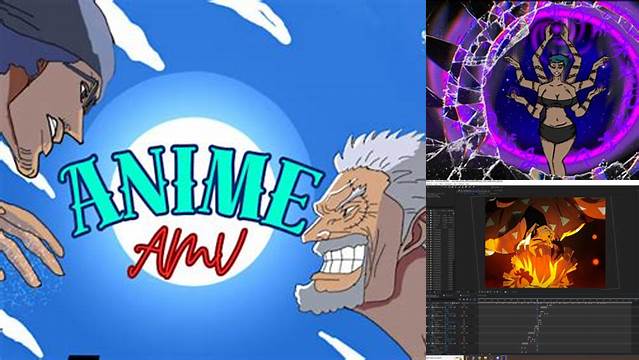
Best Fonts For AMVs: Create Stunning Anime Music Videos
Creating an Anime Music Video (AMV) is an art, and just like any art form, the details matter. One of the most crucial, yet sometimes overlooked, aspects of a great AMV is the font you choose. The right font can enhance the emotional impact, complement the visuals, and make your video truly stand out. But with so many options out there, how do you pick the best fonts for AMVs? Don't worry, guys! We’ve got you covered. This guide will walk you through everything you need to know to choose the perfect font for your next AMV masterpiece.
1. Understanding the Importance of Font Choice in AMVs
Choosing the best fonts for AMVs isn’t just about aesthetics; it’s about conveying the right message and enhancing the overall viewing experience. The font you select can set the tone, reflect the mood of the music and anime, and ensure that your text is legible and engaging. A poorly chosen font can distract viewers and detract from the emotional impact you’re trying to create. For example, a playful, bubbly font might not be the best choice for a serious, dramatic AMV. Similarly, a font that's too ornate or difficult to read can frustrate viewers and make it hard for them to follow along. Think of the font as a visual voice that complements the music and visuals, adding another layer of storytelling to your AMV. So, let's dive deeper into why this is so important.
Why Fonts Matter in AMVs
Think about it – you’ve spent hours meticulously editing clips, syncing them perfectly with the music, and crafting a narrative that flows seamlessly. But if your text is illegible or doesn’t match the vibe, all that hard work might not shine through. Fonts communicate emotions and themes just like music and visuals do. A bold, sans-serif font might convey power and intensity, while a delicate, script font can evoke feelings of romance or nostalgia. The best fonts for AMVs are those that harmonize with the overall aesthetic and enhance the story you're telling. Moreover, the right font can make your AMV look professional and polished, showcasing your dedication and attention to detail. It’s not just about adding text; it’s about adding the right text in the right way.
How Fonts Impact Viewer Engagement
Engaging your audience is the ultimate goal of any AMV creator. The best fonts for AMVs play a significant role in this. If the text is easy to read and visually appealing, viewers are more likely to stay engaged and enjoy the video. A clear, well-chosen font ensures that your message comes across without any distractions. On the other hand, a cluttered or difficult-to-read font can cause viewers to lose interest quickly. Consider the pace of your AMV as well. Fast-paced scenes might require a clean, simple font that can be quickly processed, while slower, more introspective moments might benefit from a more elegant or artistic font. Ultimately, the font should enhance the viewer’s experience, not detract from it.
2. Key Characteristics of Good AMV Fonts
So, what makes a font a good fit for an AMV? There are several key characteristics to consider when choosing the best fonts for AMVs. These include readability, style, versatility, and technical considerations. Readability is paramount – if viewers can’t easily read the text, the message is lost. Style should align with the mood and theme of your AMV. Versatility ensures that the font works well in various contexts and sizes. And technical aspects, such as file format and compatibility, can affect the font’s usability in your editing software. Let’s break down each of these characteristics in more detail.
Readability: The Most Important Factor
Readability is king! No matter how stylish a font might be, if it’s difficult to read, it’s not a good choice for an AMV. The best fonts for AMVs are those that are clear, crisp, and easy on the eyes. Consider the size and spacing of the letters, as well as the contrast between the text and the background. Avoid fonts with overly intricate designs or thin lines that can become blurry or disappear when scaled down. Test your font choices on different screen sizes and resolutions to ensure they remain legible. A good rule of thumb is to prioritize clarity over aesthetics, especially for important information like lyrics or subtitles. After all, what's the point of a beautiful font if no one can read it?
Style: Matching the Font to the AMV's Mood
The style of the font should complement the mood and theme of your AMV. Are you creating a high-energy action AMV? A bold, modern font might be the perfect fit. Or perhaps you're going for a more melancholic and emotional vibe? A delicate, handwritten font could convey those feelings more effectively. The best fonts for AMVs are those that enhance the emotional impact of your video, not distract from it. Think about the anime and music you're using. Does the font align with the genre and style? Does it reflect the characters and their emotions? Choosing a font that matches the tone of your AMV will create a more cohesive and immersive experience for your viewers.
Versatility: Fonts That Work in Different Contexts
Versatility is another important factor to consider. The best fonts for AMVs are those that work well in a variety of contexts and sizes. You might need to use the font for titles, subtitles, credits, and other text elements throughout your video. A versatile font will maintain its readability and aesthetic appeal regardless of how it’s used. Look for fonts that have a range of weights and styles, such as regular, bold, italic, and condensed. This will give you more flexibility in your design choices. Additionally, consider how the font looks when scaled up or down. Some fonts may lose their clarity or become distorted at certain sizes. Testing the font in different scenarios will ensure it performs well across your entire AMV.
Technical Considerations: File Format and Compatibility
Don't forget the technical side of things! The best fonts for AMVs are not only visually appealing but also technically sound. Ensure that the font file is compatible with your video editing software. Most editing programs support common font formats like TTF (TrueType Font) and OTF (OpenType Font). However, it’s always a good idea to double-check before downloading and installing a font. Additionally, consider the file size of the font. Large font files can sometimes slow down your editing software or increase the rendering time of your video. Choose fonts that are optimized for performance without sacrificing quality. Paying attention to these technical details will save you headaches down the road and ensure a smooth editing process.
3. Top Font Categories for AMVs
Now that we've covered the key characteristics of good AMV fonts, let's explore some of the top font categories that tend to work well. These categories include sans-serif fonts, script fonts, and display fonts. Each category has its own unique style and characteristics, making them suitable for different types of AMVs. Understanding these categories will help you narrow down your choices and find the best fonts for AMVs that perfectly match your vision. Let's dive into each category and see what they have to offer.
Sans-Serif Fonts: Clean and Modern
Sans-serif fonts are known for their clean, modern look. They lack the small decorative strokes (serifs) found at the ends of letters, giving them a streamlined and contemporary appearance. This makes them incredibly readable, especially on screens, which is a huge plus for AMVs. The best fonts for AMVs in the sans-serif category often convey a sense of simplicity and clarity, making them ideal for fast-paced action scenes or technical information like lyrics and subtitles. Think fonts like Helvetica, Arial, and Futura. They’re versatile, easy to read, and work well in a variety of contexts. If you're aiming for a sleek, polished look, sans-serif fonts are definitely worth considering.
Serif Fonts: Classic and Elegant
Serif fonts, on the other hand, have those little decorative strokes (serifs) at the ends of their letters. This gives them a more classic and elegant appearance. Serif fonts often evoke a sense of tradition and sophistication, making them suitable for AMVs with a more refined or historical theme. While they can be a bit trickier to read on screens than sans-serif fonts, the best fonts for AMVs in this category are still highly legible and can add a touch of class to your video. Think of fonts like Times New Roman, Garamond, and Georgia. They're perfect for titles, credits, or any text that needs to convey a sense of timeless elegance.
Script Fonts: Handwritten and Artistic
Script fonts mimic the look of handwritten or calligraphic writing. They're often flowing and graceful, adding a personal and artistic touch to your AMV. Script fonts can evoke a wide range of emotions, from romance and nostalgia to playfulness and whimsy. However, readability can be a challenge with script fonts, so it's important to choose wisely. The best fonts for AMVs in this category are those that balance style with legibility. Use them sparingly for titles or special text elements, and avoid using them for large blocks of text. Think of fonts like Brush Script, Pacifico, and Lobster. They're perfect for adding a touch of personality and flair to your AMV.
Display Fonts: Unique and Eye-Catching
Display fonts are designed to grab attention. They're often unique and stylized, making them perfect for titles, logos, and other text elements that need to stand out. Display fonts come in a wide variety of styles, from bold and futuristic to playful and quirky. However, like script fonts, readability can be a concern with display fonts. The best fonts for AMVs in this category are those that are both eye-catching and legible. Use them sparingly and make sure they complement the overall aesthetic of your video. Think of fonts like Impact, Bebas Neue, and Montserrat. They're great for making a statement and adding a visual punch to your AMV.
4. Popular Font Choices for AMV Creators
Okay, guys, let's get down to specifics! Now that we’ve explored the different font categories, let's look at some popular font choices that AMV creators often use. These fonts have proven their worth in countless AMVs and are known for their readability, style, and versatility. We’ll cover some go-to fonts in each category, giving you a solid starting point for your font selection. Whether you're a seasoned AMV editor or just starting out, knowing these fonts can help you find the best fonts for AMVs quickly and easily. So, let's dive in and check out some crowd favorites!
Sans-Serif Favorites: Helvetica, Arial, Futura
When it comes to sans-serif fonts, a few names consistently pop up in the AMV community: Helvetica, Arial, and Futura. These fonts are like the Swiss Army knives of typography – versatile, reliable, and always a good choice. Helvetica is renowned for its clean and neutral design, making it highly readable in various contexts. Arial is a similar, slightly more accessible alternative. Futura, with its geometric shapes, brings a modern and slightly futuristic vibe to your AMV. The best fonts for AMVs in this category are perfect for subtitles, lyrics, and any text that needs to be clear and easy to read. They're the unsung heroes of many successful AMVs, quietly doing their job of conveying information without stealing the spotlight.
Serif Classics: Times New Roman, Garamond, Georgia
For a touch of classic elegance, serif fonts like Times New Roman, Garamond, and Georgia are excellent choices. Times New Roman is a traditional and widely recognized font, often used in formal documents and publications. Garamond has a more refined and sophisticated feel, making it suitable for AMVs with a historical or artistic theme. Georgia is designed specifically for screen readability, making it a great option for longer blocks of text. The best fonts for AMVs in this category are ideal for titles, credits, or any text that needs to convey a sense of timelessness and sophistication. They add a touch of class to your video, making it feel more polished and professional.
Script Sensations: Brush Script, Pacifico, Lobster
If you want to add a personal and artistic touch to your AMV, script fonts are the way to go. Brush Script, Pacifico, and Lobster are three popular choices that offer a range of styles and personalities. Brush Script has a casual and handwritten feel, perfect for adding a touch of informality to your video. Pacifico is a playful and flowing font that evokes a sense of summer and relaxation. Lobster is a bold and eye-catching script font that's great for titles and headings. The best fonts for AMVs in this category should be used sparingly, as readability can be a challenge. But when used correctly, they can add a unique and memorable touch to your AMV.
Display Dynamos: Impact, Bebas Neue, Montserrat
For those moments when you need to make a statement, display fonts are your best friends. Impact, Bebas Neue, and Montserrat are three dynamic display fonts that can add visual punch to your AMV. Impact is a bold and attention-grabbing font that's perfect for titles and headings. Bebas Neue is a tall and condensed sans-serif font that has a modern and stylish look. Montserrat is a versatile and geometric sans-serif font that works well in a variety of contexts. The best fonts for AMVs in this category are those that balance style with readability. Use them to highlight important information or to add a visual flair to your video. They're the secret weapon for creating memorable and impactful AMVs.
5. Where to Find High-Quality Fonts for AMVs
Now that you know what to look for, the next question is: where can you find these fantastic fonts? Luckily, the internet is brimming with resources for finding high-quality fonts, both free and paid. Knowing where to look can save you time and ensure that you're using fonts that are not only visually appealing but also licensed correctly. We’ll explore some of the best websites and resources for finding the best fonts for AMVs, helping you build your font library and elevate your AMV creations. So, let's check out the treasure trove of fonts available online!
Google Fonts: A Free and Reliable Resource
Google Fonts is a treasure trove for anyone looking for free, high-quality fonts. It offers a vast library of open-source fonts that are free to use for personal and commercial projects. The fonts are well-organized, easy to browse, and can be directly downloaded or linked to your website or editing software. Google Fonts includes a wide variety of styles, from sans-serif and serif to script and display, making it a great starting point for finding the best fonts for AMVs. Plus, the fonts are designed to be web-friendly, ensuring they look great on screens. With its user-friendly interface and extensive collection, Google Fonts is a go-to resource for many AMV creators.
DaFont: A Popular Choice for Unique Fonts
DaFont is another popular website for finding fonts, especially if you're looking for something unique and creative. It has a massive collection of fonts, many of which are free for personal use. DaFont's fonts are categorized by style, theme, and author, making it easy to find what you're looking for. However, it's important to check the license for each font, as some may have restrictions on commercial use. The best fonts for AMVs can often be found on DaFont, but remember to always respect the font creator's terms. With its diverse selection and active community, DaFont is a great place to discover hidden gems for your AMVs.
Adobe Fonts: Integrated with Creative Cloud
If you're an Adobe Creative Cloud user, you have access to Adobe Fonts, a vast library of high-quality fonts that are included with your subscription. Adobe Fonts offers a seamless integration with Adobe software like Photoshop, Premiere Pro, and After Effects, making it incredibly convenient for AMV editing. The fonts are professionally designed and licensed for both personal and commercial use. With Adobe Fonts, you can easily find and use the best fonts for AMVs directly within your editing workflow. It’s a powerful resource that simplifies font management and ensures you have access to a wide range of top-notch typography.
Font Squirrel: Free Fonts for Commercial Use
Font Squirrel is a website that specializes in offering free fonts for commercial use. This means you can use the fonts in your AMVs without worrying about licensing restrictions. Font Squirrel curates a selection of high-quality fonts from various designers and foundries, ensuring that you have access to a diverse range of styles. The website also offers a font identifier tool, which can help you find a font similar to one you've seen elsewhere. For AMV creators looking for the best fonts for AMVs that are both free and commercially viable, Font Squirrel is a fantastic resource.
6. Tips for Combining Fonts Effectively in AMVs
Choosing individual fonts is just the first step. To really make your AMV stand out, you need to know how to combine fonts effectively. Font pairing is an art, and when done well, it can elevate your video's visual appeal significantly. A harmonious combination of fonts can create a balanced and professional look, while a mismatched pairing can be distracting and unprofessional. We’ll cover some essential tips for combining fonts in your AMVs, helping you create visually stunning and cohesive text elements. So, let's dive into the art of font pairing!
Create Visual Hierarchy with Different Font Weights
One of the easiest ways to create visual hierarchy is by using different font weights within the same font family. For example, you might use a bold weight for titles and a regular weight for body text or subtitles. This helps viewers quickly understand the structure of your text and guides their eyes to the most important information. The best fonts for AMVs often come in a variety of weights, such as light, regular, bold, and extra-bold, giving you plenty of options for creating contrast and visual interest. Experiment with different weights to see what works best for your AMV and how it enhances the overall look and feel.
Pair a Sans-Serif with a Serif for Balance
A classic and reliable technique for font pairing is to combine a sans-serif font with a serif font. The contrast between the clean, modern lines of the sans-serif and the traditional, elegant serifs can create a visually balanced and appealing look. For example, you might pair a sans-serif font like Open Sans with a serif font like Merriweather. Use one font for headings and the other for body text, or mix them up for different text elements in your AMV. This combination often results in the best fonts for AMVs that need a touch of sophistication while maintaining readability. It’s a tried-and-true method that works well in a variety of contexts.
Use Font Families to Ensure Harmony
Using fonts from the same font family is a foolproof way to ensure harmony in your typography. Font families are designed to work together, with variations in weight, style, and width. For example, the Roboto family includes Roboto Regular, Roboto Bold, Roboto Italic, and more. Using different styles within the same family can create visual interest while maintaining a cohesive look. This approach is especially useful for longer blocks of text, such as lyrics or subtitles. The best fonts for AMVs often come in extensive families, providing you with all the tools you need to create a consistent and professional design. It’s a simple yet effective way to achieve a polished and unified appearance.
Limit Your Font Choices to Avoid Clutter
When it comes to font pairing, less is often more. Using too many different fonts in your AMV can create a cluttered and unprofessional look. It’s generally best to stick to two or three fonts at most. This helps maintain visual consistency and prevents your text from becoming overwhelming. Choose your fonts carefully and make sure they complement each other and the overall aesthetic of your AMV. The best fonts for AMVs are those that work together harmoniously to enhance the viewing experience. By limiting your font choices, you can create a clean and polished design that effectively communicates your message.
7. Font Licensing and Usage Rights for AMVs
Font licensing is a crucial aspect of using fonts in your AMVs, especially if you plan to share your videos publicly or monetize them. Understanding font licensing ensures that you're using fonts legally and avoiding any potential copyright issues. Different fonts come with different licenses, and it’s important to know the terms and conditions before you start using them. We’ll explore the basics of font licensing and usage rights, helping you make informed decisions about the fonts you choose for your AMVs. Let's make sure you’re in the clear when it comes to font usage!
Understanding Commercial vs. Personal Use Licenses
One of the first things to understand about font licensing is the difference between commercial and personal use licenses. A personal use license typically allows you to use the font for non-commercial projects, such as personal AMVs that you share with friends or upload to a non-monetized platform. A commercial use license, on the other hand, allows you to use the font for projects that generate income, such as monetized AMVs or promotional materials. The best fonts for AMVs that are intended for commercial use will require a commercial license. Always check the font's license agreement to ensure you're using it appropriately. Misunderstanding this can lead to legal issues down the road, so it’s better to be safe than sorry.
Checking the Font License Before Use
Before you use a font in your AMV, always check its license. The license agreement will specify the terms of use, including whether the font can be used for commercial purposes, whether you can modify the font, and whether you need to credit the font designer. You can usually find the license information on the font's download page or in a text file included with the font files. Websites like Google Fonts often provide clear license information for each font, making it easy to determine how you can use it. The best fonts for AMVs are those that come with clear and straightforward licensing terms. Taking the time to read the license agreement will save you potential headaches in the future.
Free Fonts vs. Paid Fonts and Licensing
Free fonts can be a great option for AMV creators, but it’s important to understand that not all free fonts are created equal. Some free fonts have licenses that restrict commercial use, while others are completely free to use for any purpose. Paid fonts, on the other hand, typically come with commercial licenses, but they may also have limitations on how they can be used. When choosing the best fonts for AMVs, consider your budget and licensing needs. Free fonts can be a cost-effective solution, but paid fonts often offer more flexibility and support. Always read the license agreement carefully, regardless of whether the font is free or paid.
Crediting Font Designers: Best Practices
Crediting font designers is a good practice, especially when using free fonts. While not always legally required, giving credit to the font designer shows respect for their work and helps support the typography community. You can include font credits in your AMV's credits section or in the video description. The font license may specify how the designer should be credited, so be sure to follow those guidelines. Even if it’s not mandatory, acknowledging the creator of the font adds a professional touch to your AMV and helps promote their work. Remember, the best fonts for AMVs are often the result of someone’s hard work and creativity, so showing appreciation is always a good idea.
8. Font Styles to Avoid in AMVs
Just as there are fonts that work well in AMVs, there are also font styles that should generally be avoided. These fonts might be difficult to read, visually distracting, or simply not suitable for the overall aesthetic of an AMV. Knowing which fonts to avoid can help you narrow down your choices and prevent your text from detracting from your video. We’ll cover some font styles that are best left out of your AMV projects, ensuring that your text enhances, rather than hinders, the viewing experience. Let’s look at some typographic no-nos!
Overly Ornate or Decorative Fonts
Overly ornate or decorative fonts can be tempting, but they often make text difficult to read, especially in video format. Fonts with intricate details, excessive flourishes, or unusual shapes can be visually distracting and detract from the message you’re trying to convey. The best fonts for AMVs prioritize readability and clarity. While a decorative font might work for a very brief title or special text element, it’s generally best to avoid them for longer blocks of text, such as lyrics or subtitles. Stick to fonts that are clean, clear, and easy on the eyes, and your viewers will thank you!
Fonts That Are Too Thin or Light
Fonts that are too thin or light can be challenging to read, especially on screens. Thin fonts may appear faint or blurry, making it difficult for viewers to make out the text. This is particularly true in fast-paced AMVs or videos with busy backgrounds. The best fonts for AMVs have a weight that is substantial enough to be easily visible without being overly bold. If you're using a thin font, consider adding a subtle stroke or shadow to improve its visibility. Prioritize readability over style, and your text will be much more effective.
Comic Sans and Other Overused Fonts
Comic Sans has become a bit of a typographic punchline over the years, and for good reason. While it might seem playful and informal, it’s generally considered unprofessional and overused. Other fonts that have become clichés in design include Papyrus, Impact (in certain contexts), and Times New Roman (when not used thoughtfully). The best fonts for AMVs are those that feel fresh and original. While there's nothing inherently wrong with using popular fonts, try to think outside the box and explore less common options. This will help your AMV stand out and give it a unique visual identity.
Fonts That Clash with the AMV's Style
Finally, avoid fonts that clash with the overall style and tone of your AMV. For example, a heavy metal AMV probably wouldn’t benefit from a delicate script font, and a romantic AMV might not be the best place for a bold, futuristic typeface. The best fonts for AMVs complement the visuals and music, enhancing the overall mood and message. Consider the genre, theme, and emotions you’re trying to convey, and choose fonts that align with those elements. A cohesive visual style will make your AMV more engaging and enjoyable for viewers.
9. Advanced Typography Techniques for AMVs
Once you’ve mastered the basics of font selection and pairing, you can start exploring advanced typography techniques to further enhance your AMVs. These techniques can add depth, visual interest, and a professional polish to your text elements. From kerning and leading to text animation and effects, there are many ways to elevate your typography game. We’ll delve into some advanced typography techniques that can take your AMV text to the next level. Let’s get fancy with fonts!
Kerning and Tracking for Improved Readability
Kerning and tracking are two essential typography techniques that affect the spacing between letters. Kerning refers to the adjustment of space between individual letter pairs, while tracking adjusts the overall spacing between all letters in a block of text. Proper kerning and tracking can significantly improve readability and visual appeal. If the letters are too close together, the text can look cramped and difficult to read. If they’re too far apart, the text can appear disjointed. The best fonts for AMVs are those that have well-balanced kerning and tracking by default, but you can also make manual adjustments in your editing software to fine-tune the spacing. Paying attention to these details can make a big difference in the overall look and feel of your text.
Leading (Line Spacing) for Better Legibility
Leading, also known as line spacing, is the vertical space between lines of text. Adjusting the leading can greatly impact the legibility of your text, especially in longer blocks of text like lyrics or subtitles. Too little leading can make the lines feel cramped and difficult to follow, while too much leading can make the text feel disconnected. The best fonts for AMVs should be paired with a leading that allows for comfortable reading. A general rule of thumb is to set the leading to be slightly larger than the font size, but you can experiment to find what works best for your specific font and context. Proper leading is crucial for ensuring that your text is easy to read and visually appealing.
Using Text Animation and Effects
Text animation and effects can add a dynamic and engaging element to your AMV. Simple animations like fades, slides, and zooms can draw attention to your text and make it more visually interesting. More complex effects, such as text strokes, shadows, and glows, can add depth and dimension to your text. However, it’s important to use text animation and effects sparingly and purposefully. Overdoing it can be distracting and detract from the message you’re trying to convey. The best fonts for AMVs often look even better with subtle and well-executed animation and effects. Use these techniques to enhance your text, not to overshadow it.
Adding Text Strokes and Shadows for Contrast
Adding text strokes and shadows can be a simple yet effective way to improve the contrast and readability of your text, especially when working with busy or colorful backgrounds. A stroke is an outline around the letters, while a shadow creates a sense of depth and separation. Using a stroke or shadow in a contrasting color can make your text pop and ensure it’s easily visible. The best fonts for AMVs are often paired with strokes or shadows to enhance their legibility. Experiment with different colors, thicknesses, and opacities to find the right balance for your specific font and background. These techniques can make a big difference in how your text stands out and communicates its message.
10. Case Studies: Examples of Great Font Use in AMVs
Sometimes, the best way to learn is by example. Analyzing how other AMV creators use fonts effectively can provide valuable insights and inspiration for your own projects. Looking at case studies of well-executed typography in AMVs can help you understand how different fonts and techniques can enhance the overall viewing experience. We’ll explore some examples of AMVs with outstanding font use, highlighting what makes them work and how you can apply similar principles to your own creations. Let’s get inspired by some typographic excellence!
Analyzing Font Choices in Popular AMVs
One of the best ways to improve your font selection skills is to analyze the font choices in popular AMVs. Pay attention to the fonts used for titles, subtitles, lyrics, and credits. Consider why the creator might have chosen those particular fonts and how they contribute to the overall aesthetic of the video. Are they using sans-serif fonts for clarity, serif fonts for elegance, or script fonts for personality? How do the fonts complement the visuals and music? The best fonts for AMVs are often those that seamlessly blend with the video's style and mood. By studying successful AMVs, you can develop a better understanding of what works and what doesn't.
How Fonts Enhance the Emotional Impact
Fonts have the power to evoke emotions, just like music and visuals. Analyzing AMVs that effectively use fonts to enhance the emotional impact can provide valuable lessons. For example, a dramatic AMV might use bold, impactful fonts to convey intensity, while a romantic AMV might use delicate, flowing fonts to evoke tenderness. The best fonts for AMVs are those that resonate with the emotions of the anime and music. Pay attention to how different font styles, weights, and effects contribute to the overall emotional experience. Understanding this connection can help you make more informed font choices for your own AMVs.
Examining Text Layout and Composition
Text layout and composition are just as important as font selection. Analyzing how AMV creators arrange text on the screen can provide insights into effective design principles. Consider the placement of titles, subtitles, and lyrics. Are they using consistent spacing and alignment? Are they using visual hierarchy to guide the viewer’s eye? The best fonts for AMVs are those that are presented in a clear, organized, and visually appealing way. Pay attention to how text interacts with the visuals and how it contributes to the overall composition of the video. Effective text layout can greatly enhance the readability and impact of your AMV.
Learning from Different AMV Genres and Styles
Different AMV genres and styles often call for different typographic approaches. Analyzing AMVs across various genres can broaden your understanding of font use and give you ideas for your own projects. For example, a fast-paced action AMV might benefit from clean, modern sans-serif fonts, while a more introspective or artistic AMV might call for more expressive script or display fonts. The best fonts for AMVs are those that align with the specific genre and style of the video. By studying a variety of AMVs, you can develop a versatile typographic toolkit and adapt your font choices to suit different contexts.
Choosing the best fonts for AMVs might seem like a small detail, but it can make a huge difference in the overall quality and impact of your video. By understanding the importance of font choice, exploring different font categories, and learning advanced typography techniques, you can create AMVs that are visually stunning and emotionally engaging. So go ahead, guys, experiment with fonts, find your style, and let your creativity shine through! Happy editing!